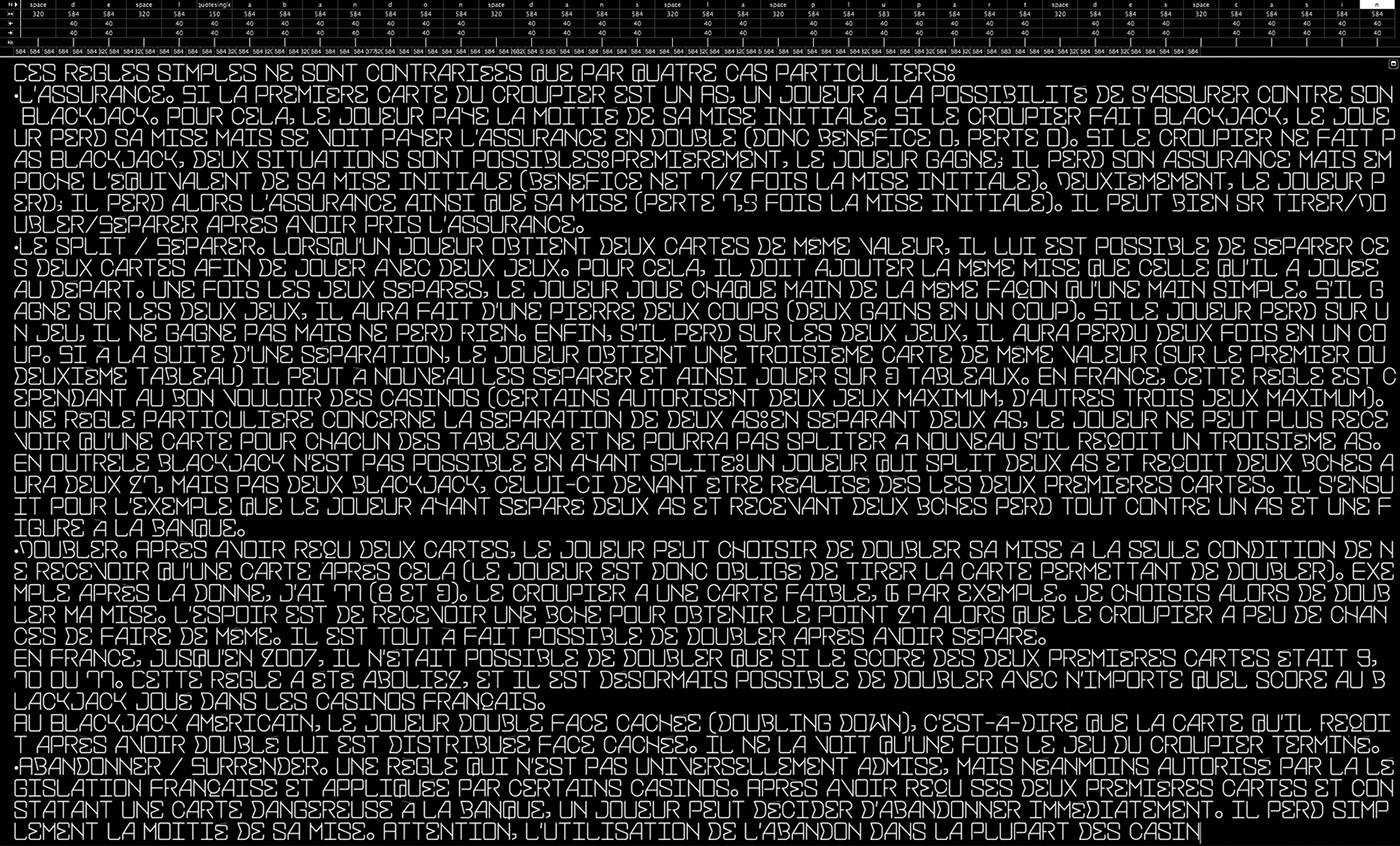
BlackJack is available in 3 styles (3 weights, 2 versions) :
BlackJack Typeface. 2020
Monospace in Uppercase
The edition is available in 3 styles (3 weights, 2 versions) :